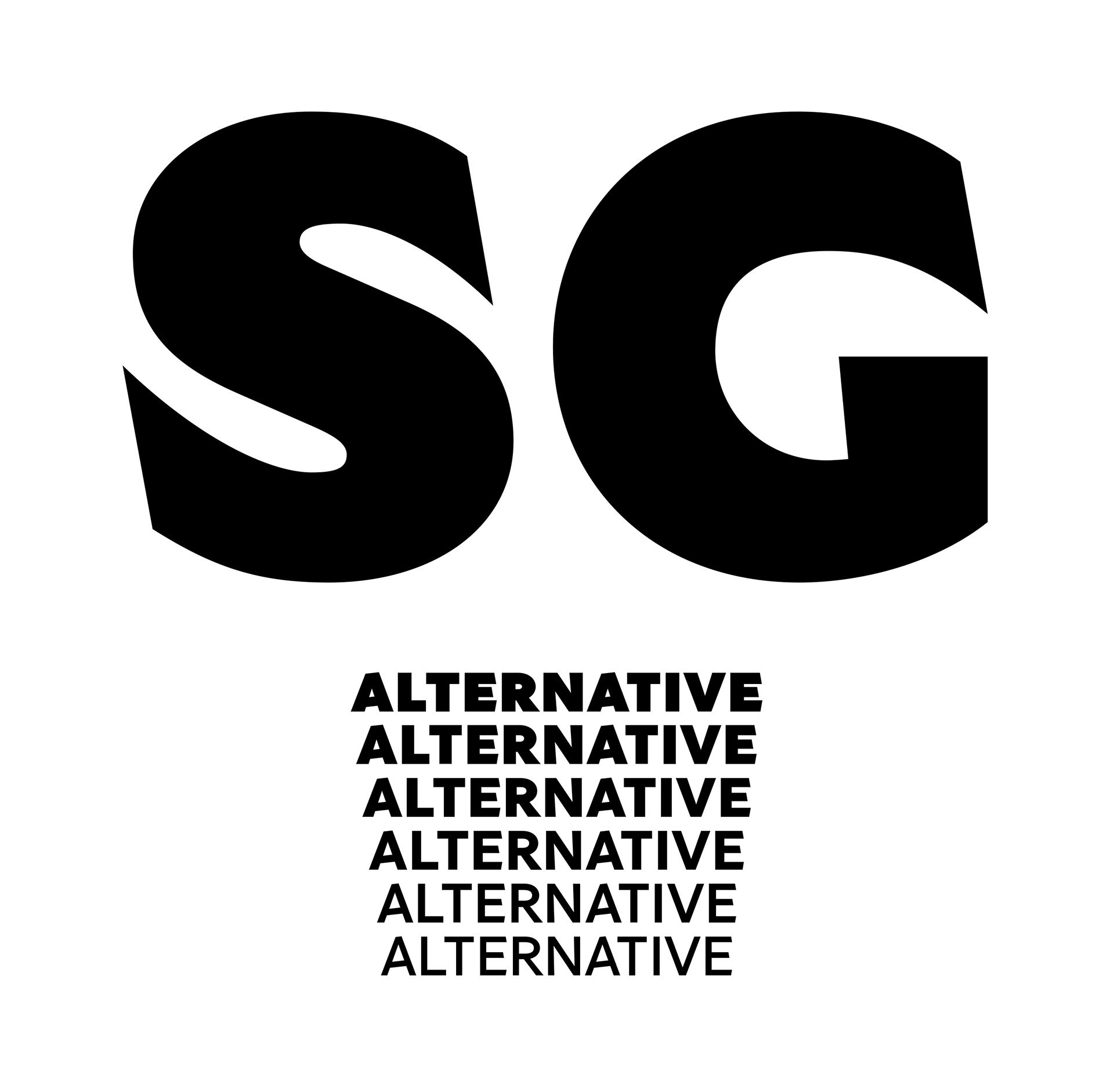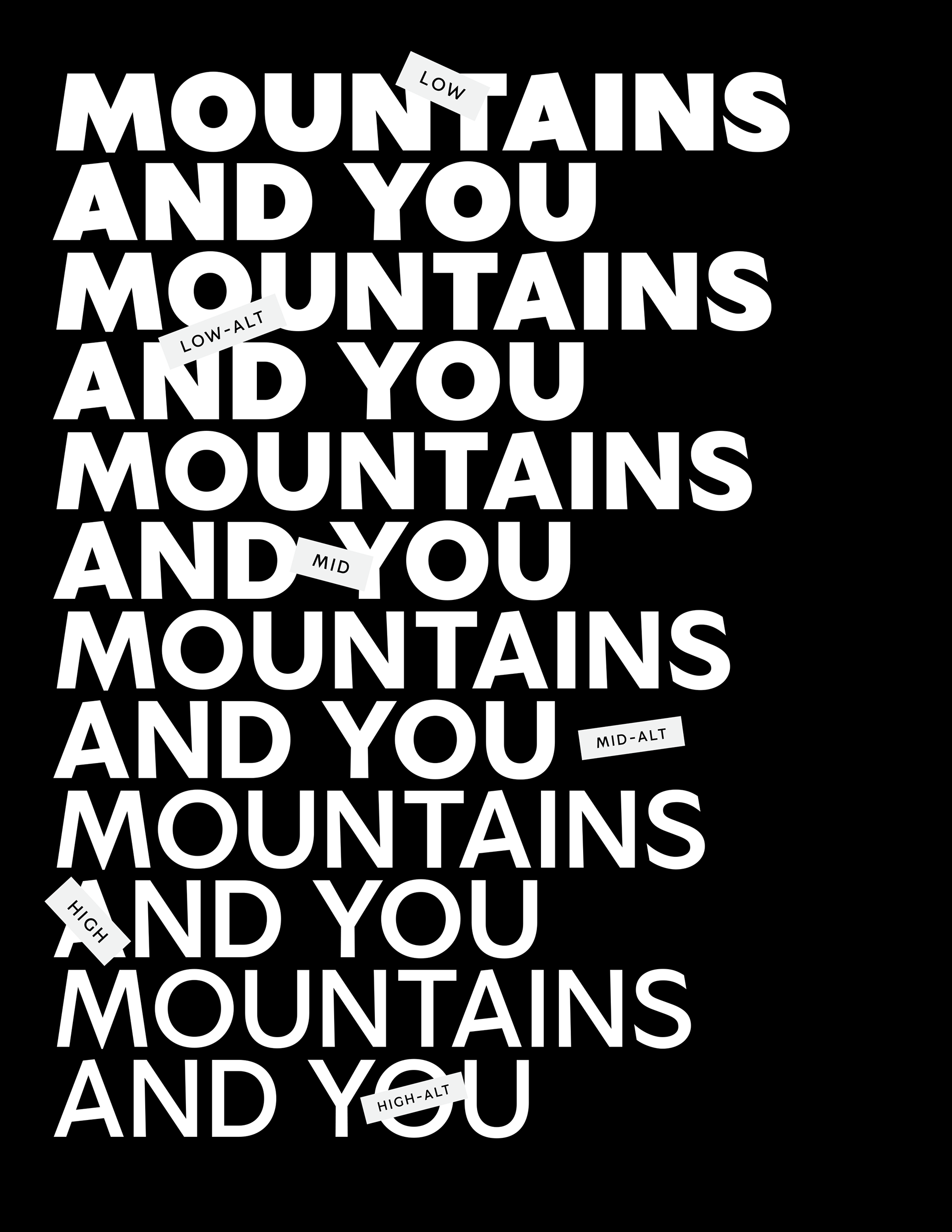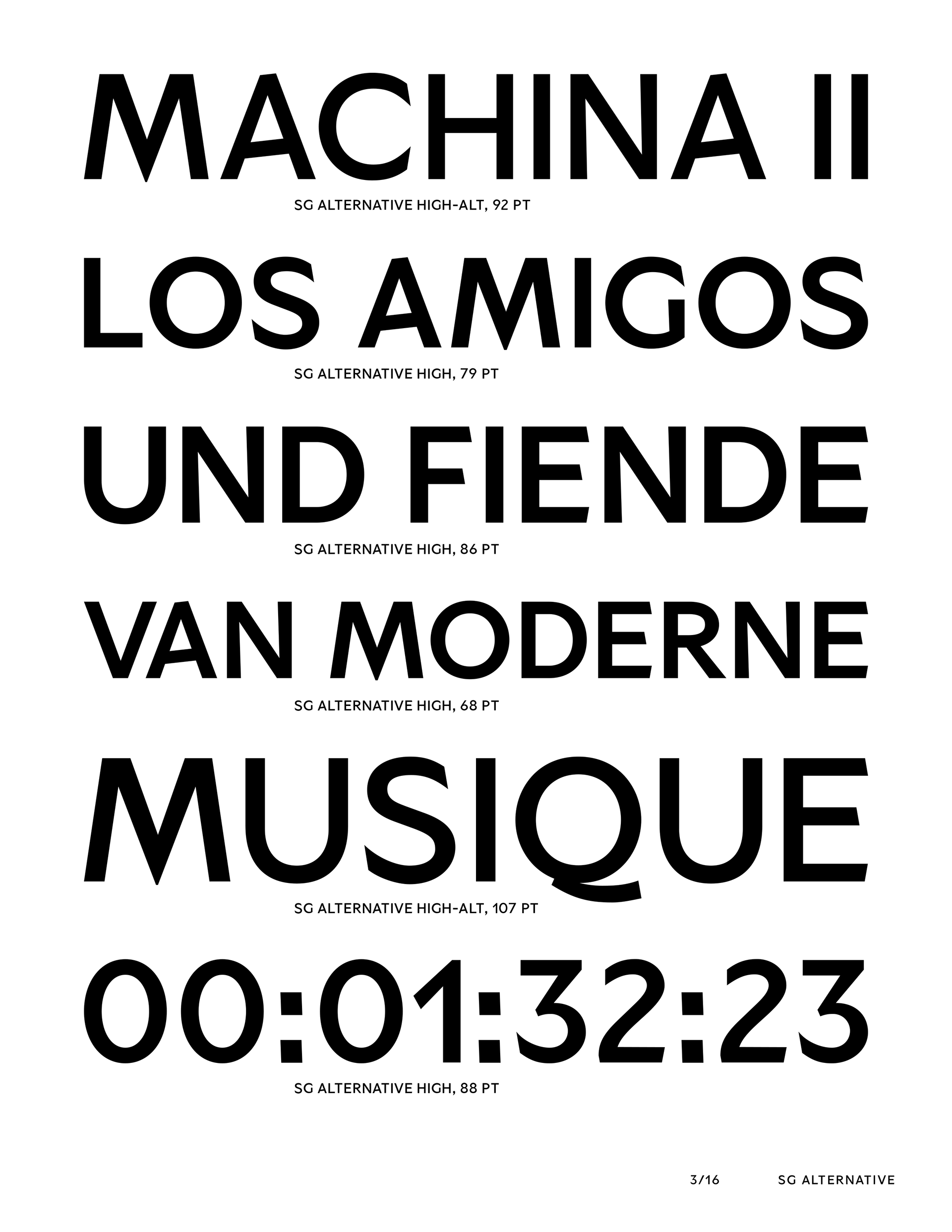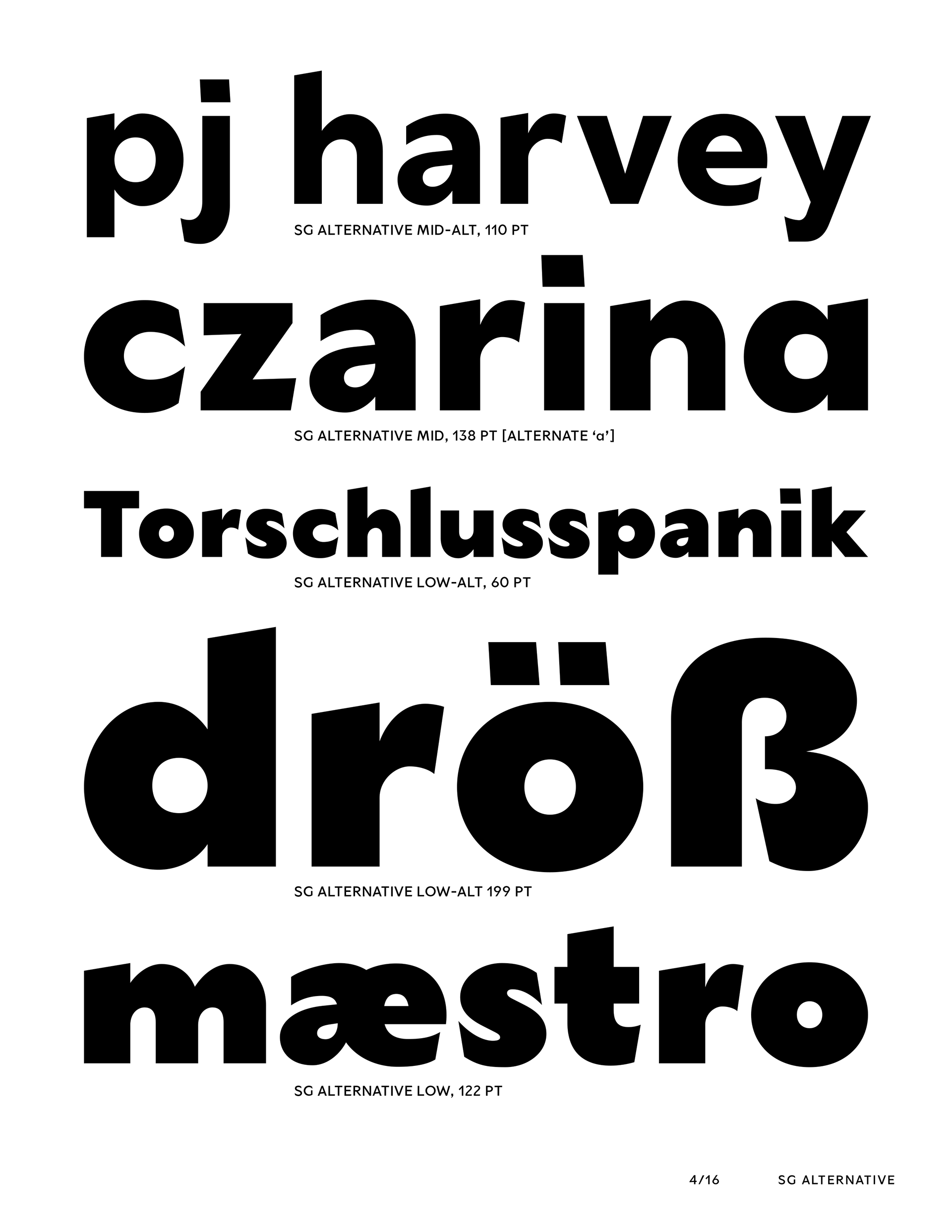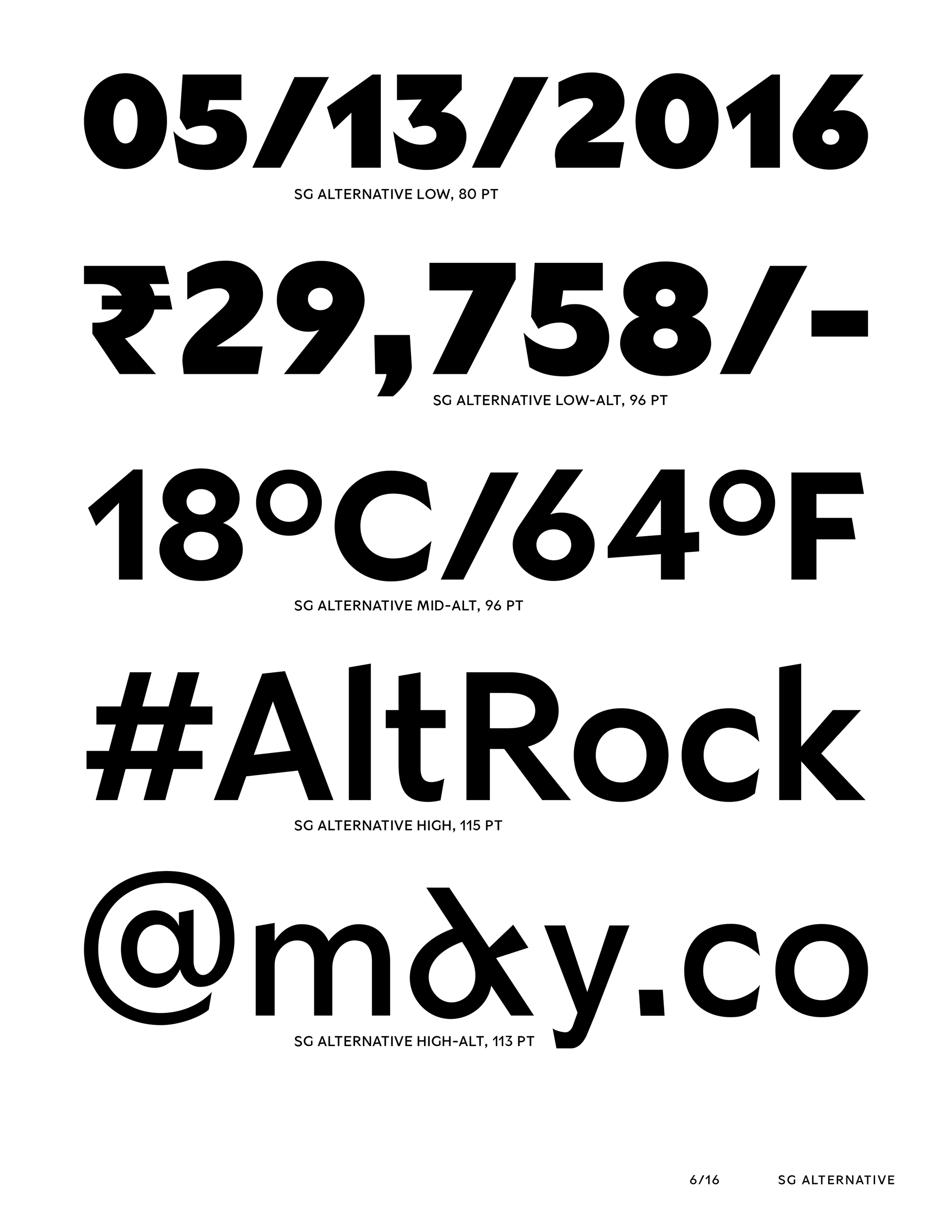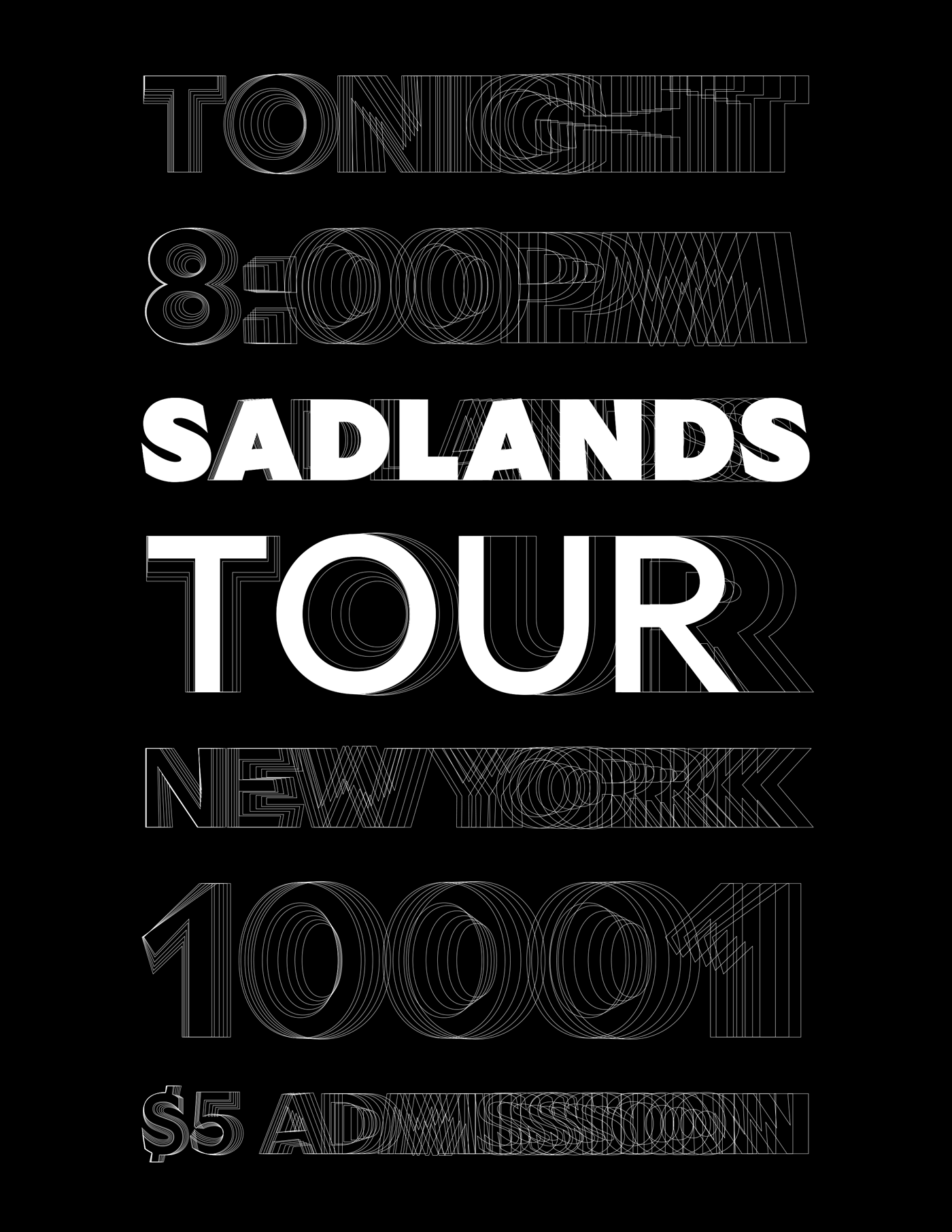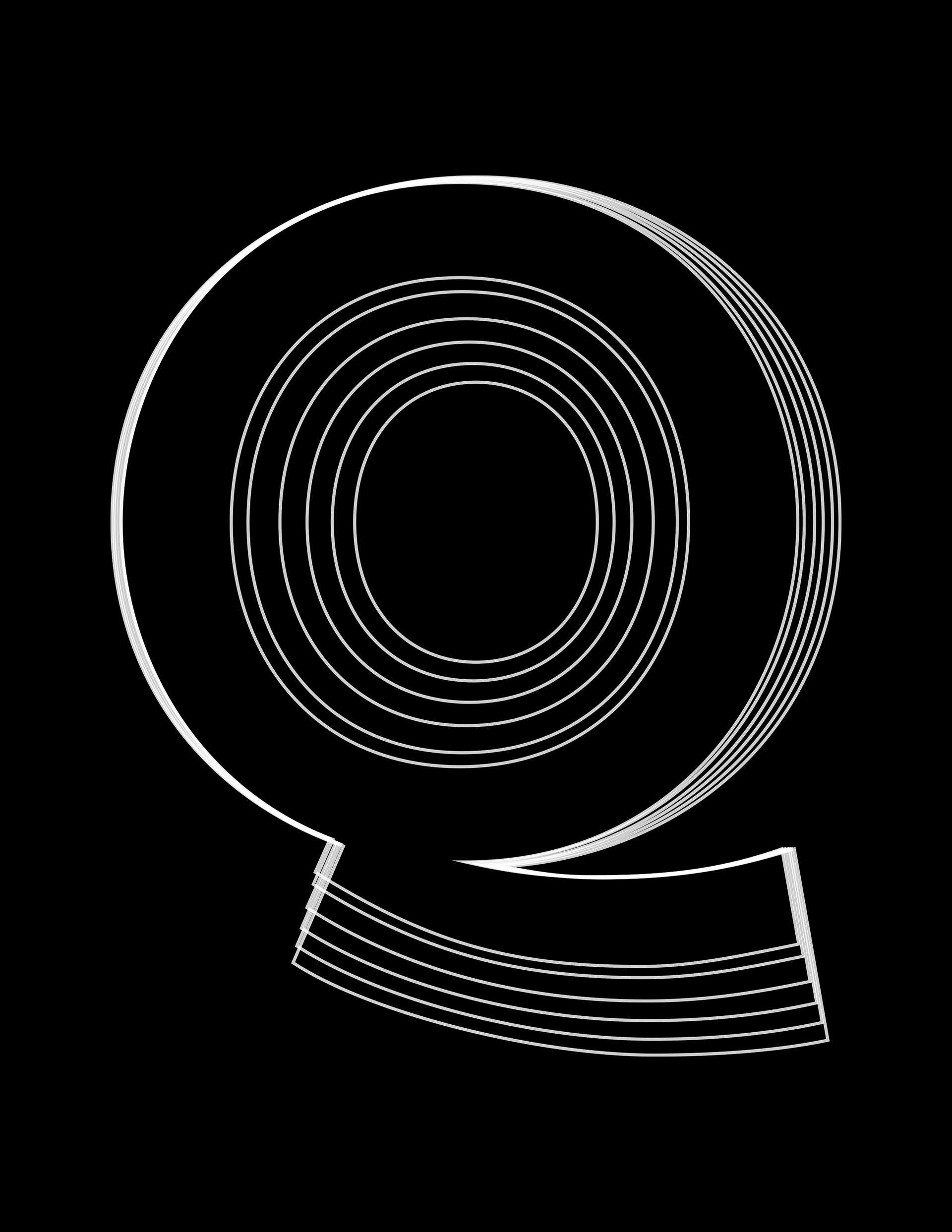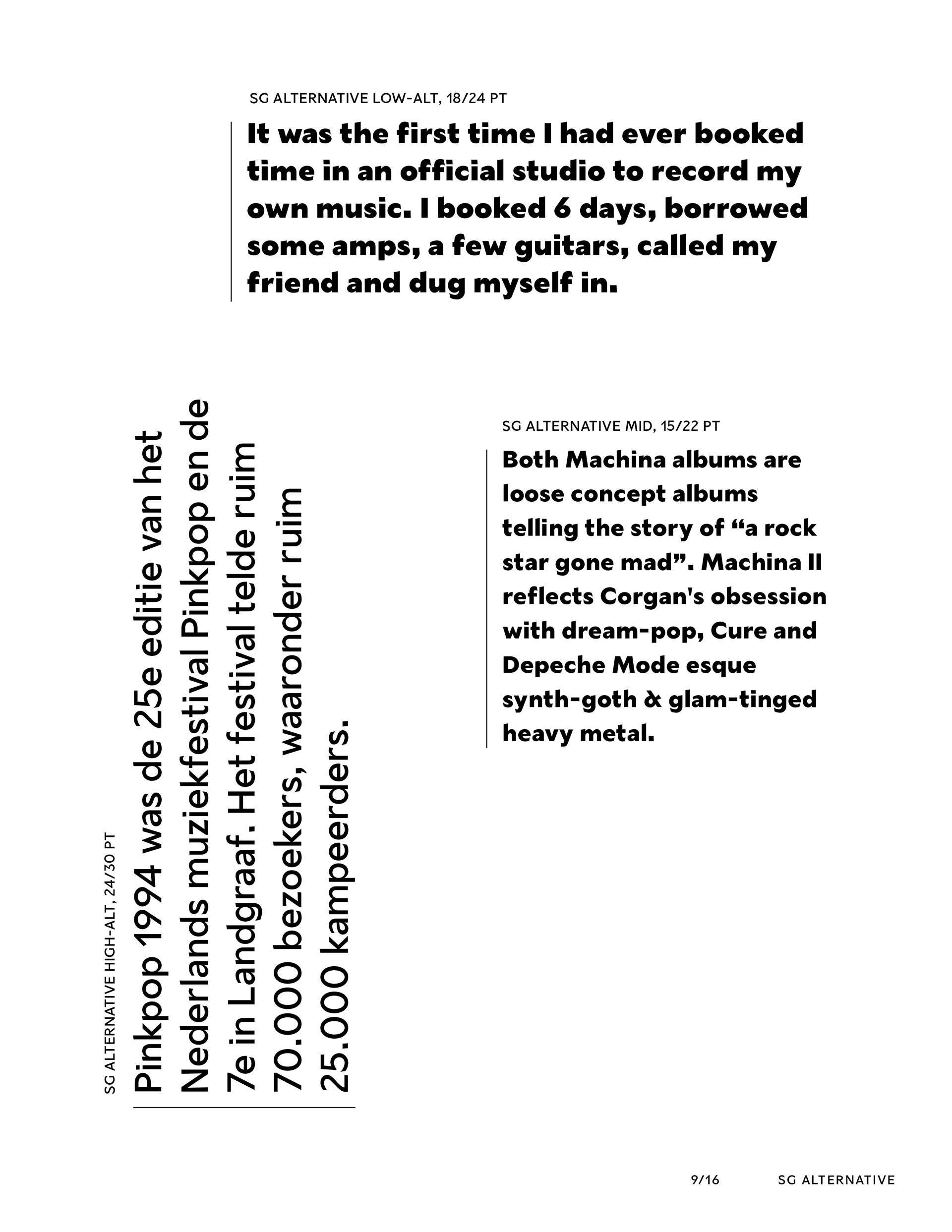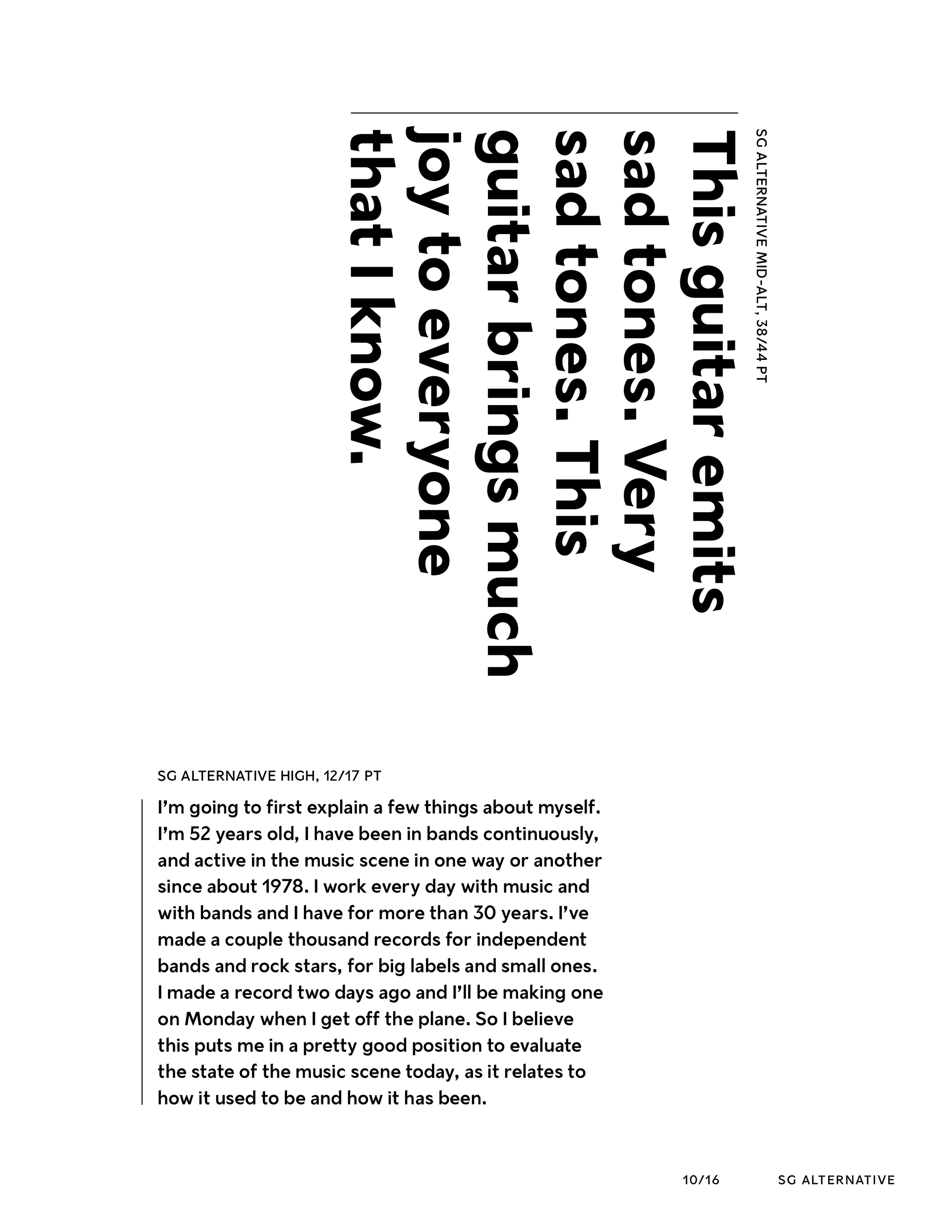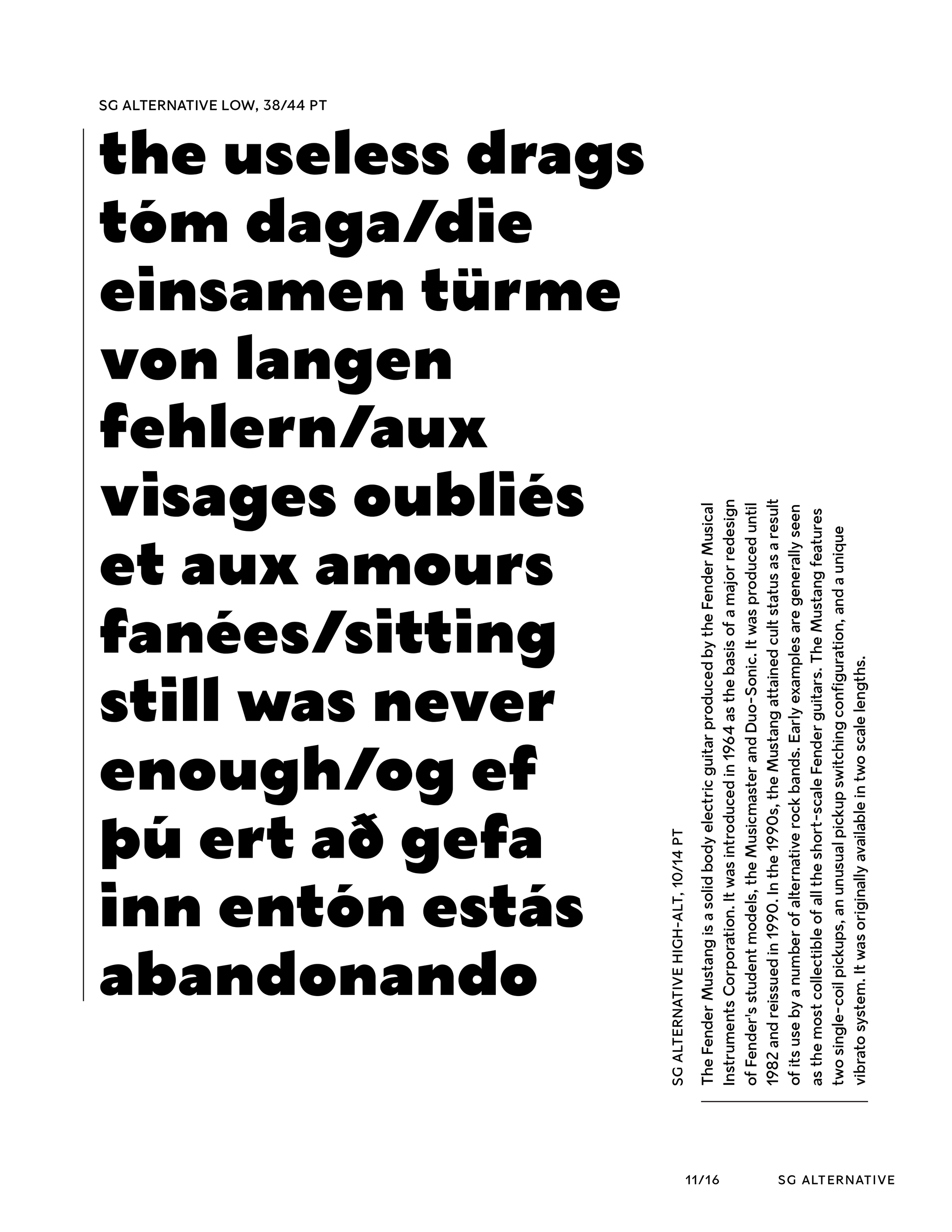
SG Alternative is a typeface primarily designed to support my alternative rock band project Mountains and You. It draws inspiration from several contemporary sans-serifs while maintaining innate visual attributes. It is offered in two sets of three weights each: High, Mid, Low & High-Alt, Mid-Alt, Low-Alt. The “-Alt” set of weights has a slighly thinner stroke width than its counterpart. The family collectively creates a set of textures appropriate for a multitude of applications.